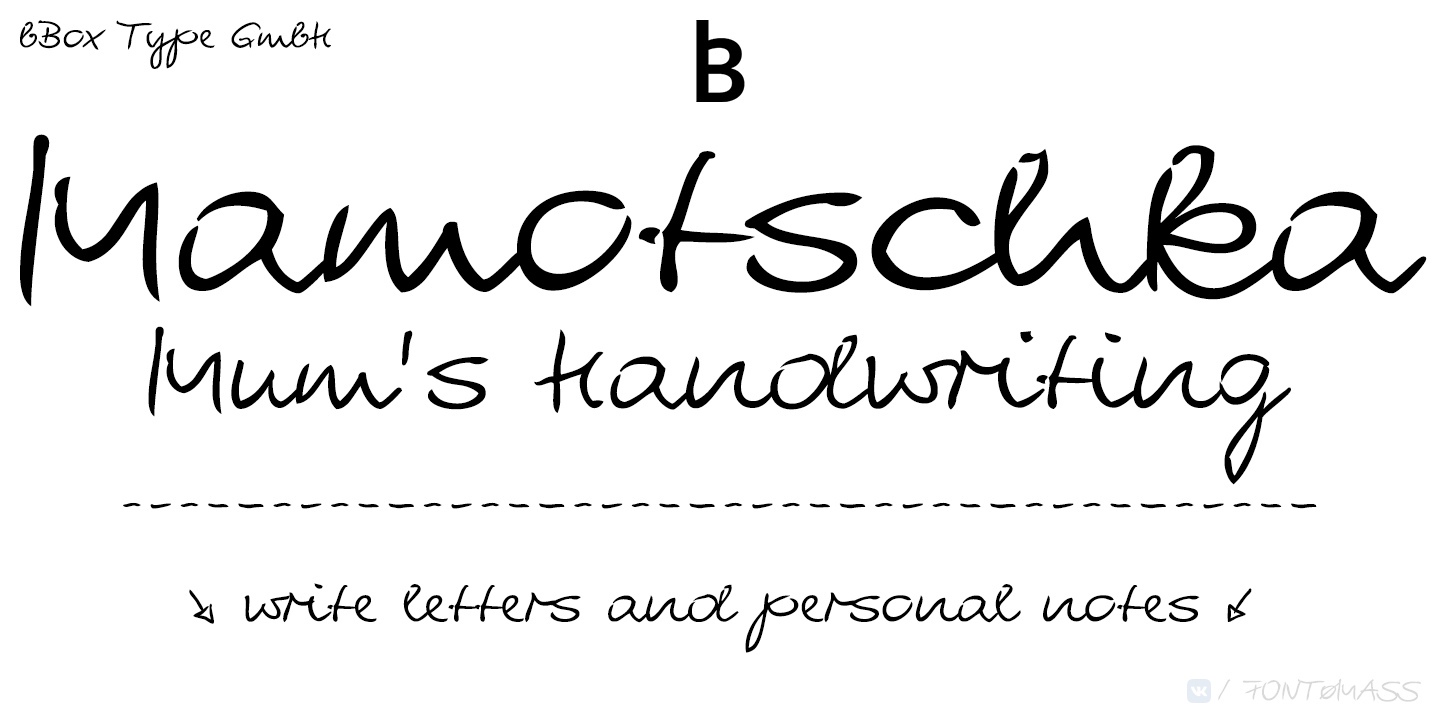
Mamotschka Font
Mamotschka Font is perfect for Eastern European restaurant branding, Slavic cultural heritage marketing, traditional Russian cuisine signage, European folk festival graphics, matryoshka craft shop communications, Slavic family business advertising, cultural heritage displays, and authentic Eastern European lifestyle promotions.
What makes Mamotschka Font exciting is its maternal warmth that embodies the nurturing tradition and cultural heritage of Eastern European family culture with Slavic authenticity and grandmother's wisdom. The font features comforting letterforms with traditional proportions and familial character that evoke babushka's kitchen, nested dolls, and the loving warmth of Slavic family traditions and cultural motherhood. Its distinctive familial styling and cultural appeal communicate nurturing, tradition, and family heritage, making every message feel embraced by grandmother's love and touched by the comforting beauty of Eastern European family culture and maternal tradition.
The Mamotschka Font family includes regular weight with uppercase and lowercase letters, numerals, punctuation marks, and special characters. Premium versions often feature traditional alternates and cultural elements that enhance the nurturing, familial aesthetic perfect for Eastern European and cultural applications.
This comforting cultural typeface brings instant authenticity and family credibility to any Eastern European project. Mamotschka Font Free Download offers exceptional value for Slavic cultural businesses and family organizations seeking to communicate maternal warmth, cultural heritage, and traditional family values to cultural communities and heritage enthusiasts.
The nurturing character of Mamotschka Font makes it particularly valuable for Eastern European restaurants, Slavic cultural centers, and traditional family businesses. Its excellent readability ensures cultural messaging and family communications remain clear while maintaining the distinctive maternal aesthetic that appeals to audiences seeking authentic Eastern European experiences and family cultural heritage.
Slavic cultural marketers appreciate how Mamotschka Font effortlessly conveys cultural authenticity and maternal warmth. The font's comforting proportions and familial details create trustworthy brand materials that establish emotional connections with audiences who value Eastern European culture, family traditions, and the nurturing beauty of Slavic maternal heritage and cultural family wisdom.
The versatile warmth of this typeface extends to cultural education, heritage preservation, and family service organizations where maternal authenticity enhances cultural credibility and family appeal. Mamotschka Font Free Download provides creative professionals with an essential tool for developing memorable, heritage-driven designs that resonate with audiences who embrace Eastern European culture, family traditions, and the comforting warmth of matryoshka-style maternal care in their cultural and family experiences.